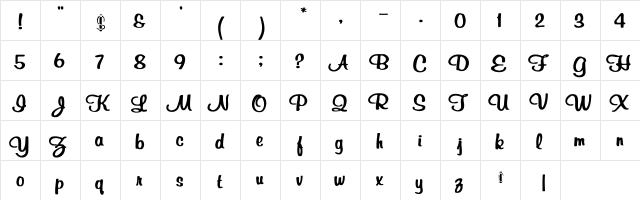
RSRichardMurray bold Bold
RSRichardMurray bold is a composed and adaptable typeface that performs quietly and consistently across a wide range of design contexts. The heavy weight commands attention and anchors typographic hierarchies.